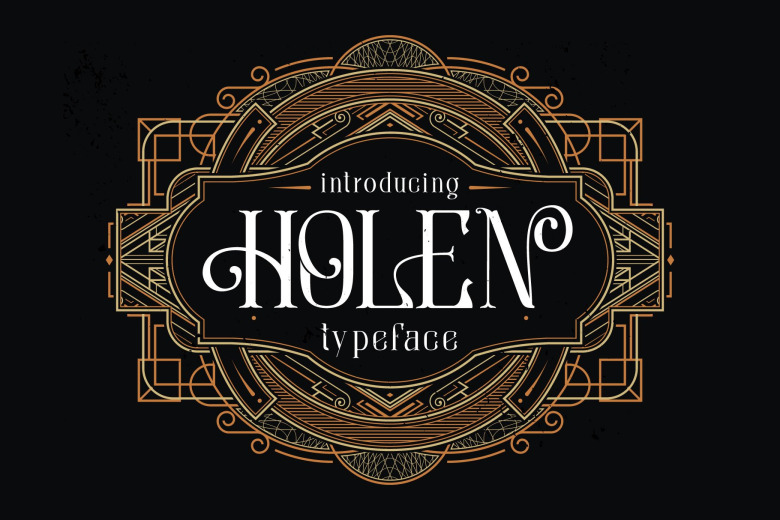
Holen Font
Holen is an incredibly distinct serif font inspired by the 1800 era combined with today’s era. Charming and extremely elegant, this typeface features subtle curly details and a nice, cursive style which makes it perfect for any interesting concept you have! This font is PUA encoded which means you can access all of the glyphs and swashes with ease!